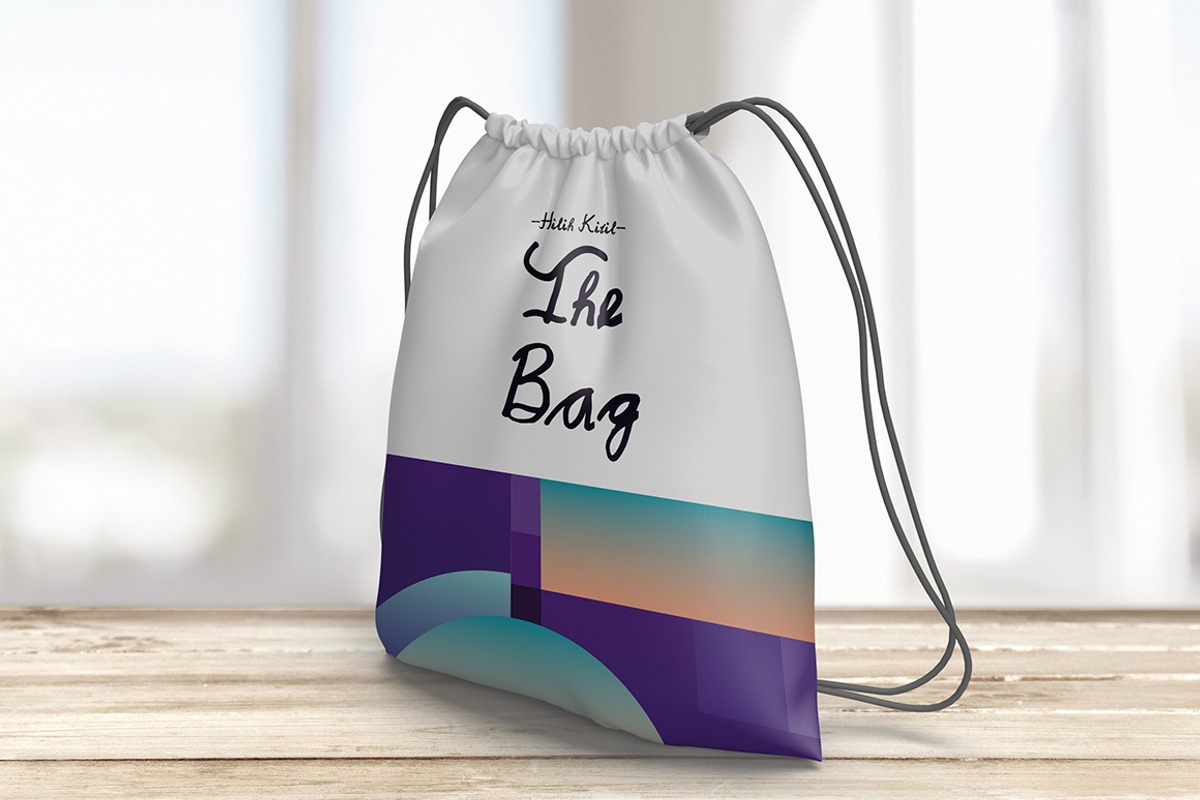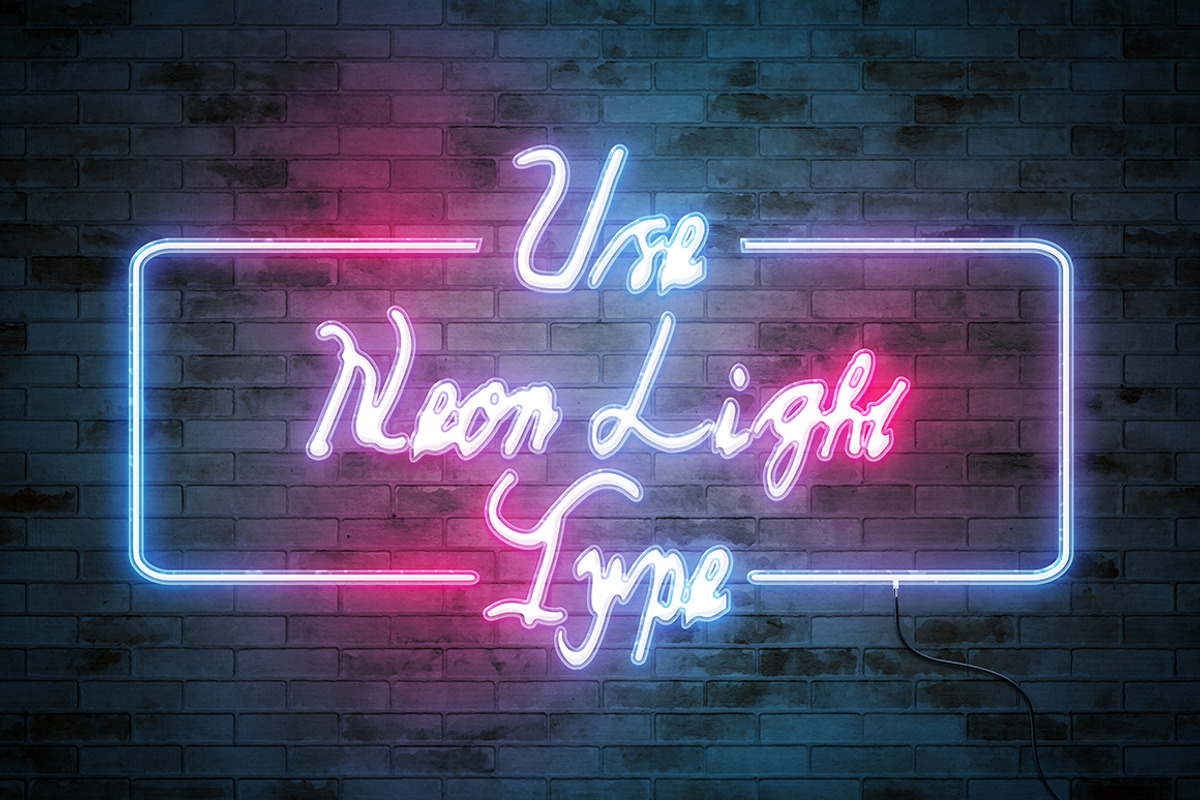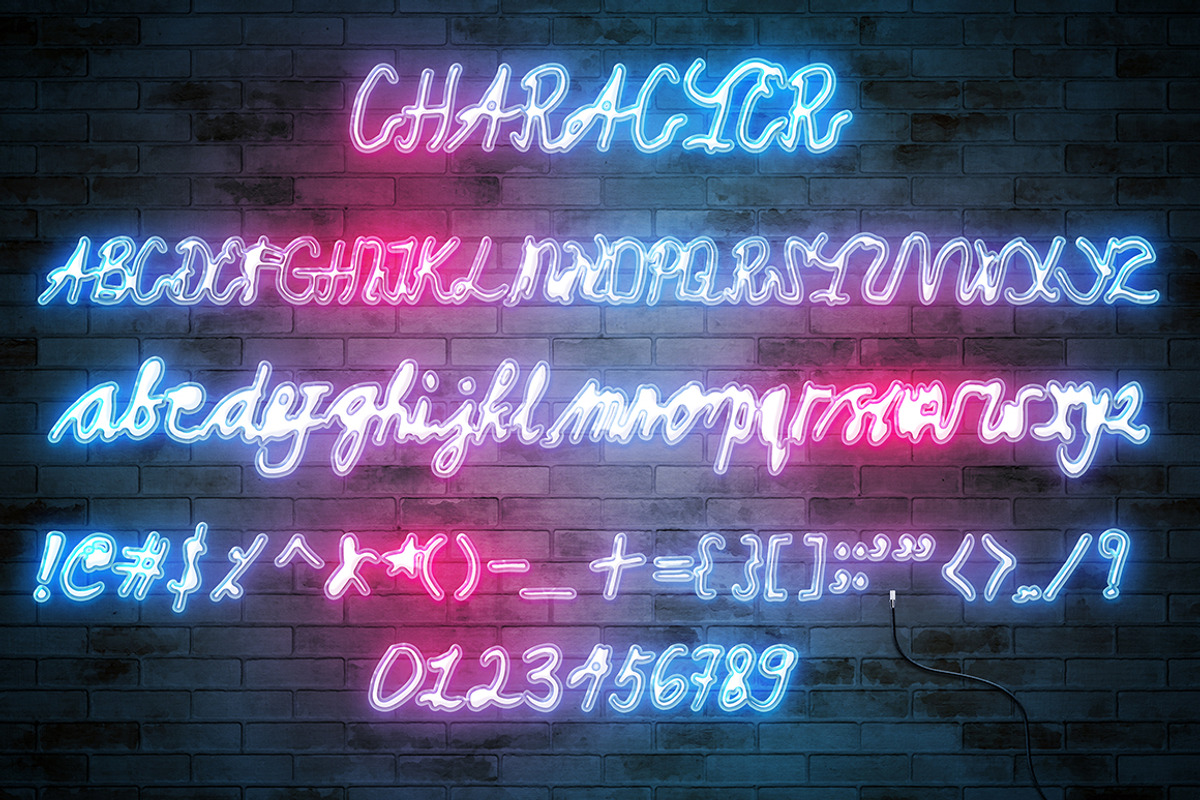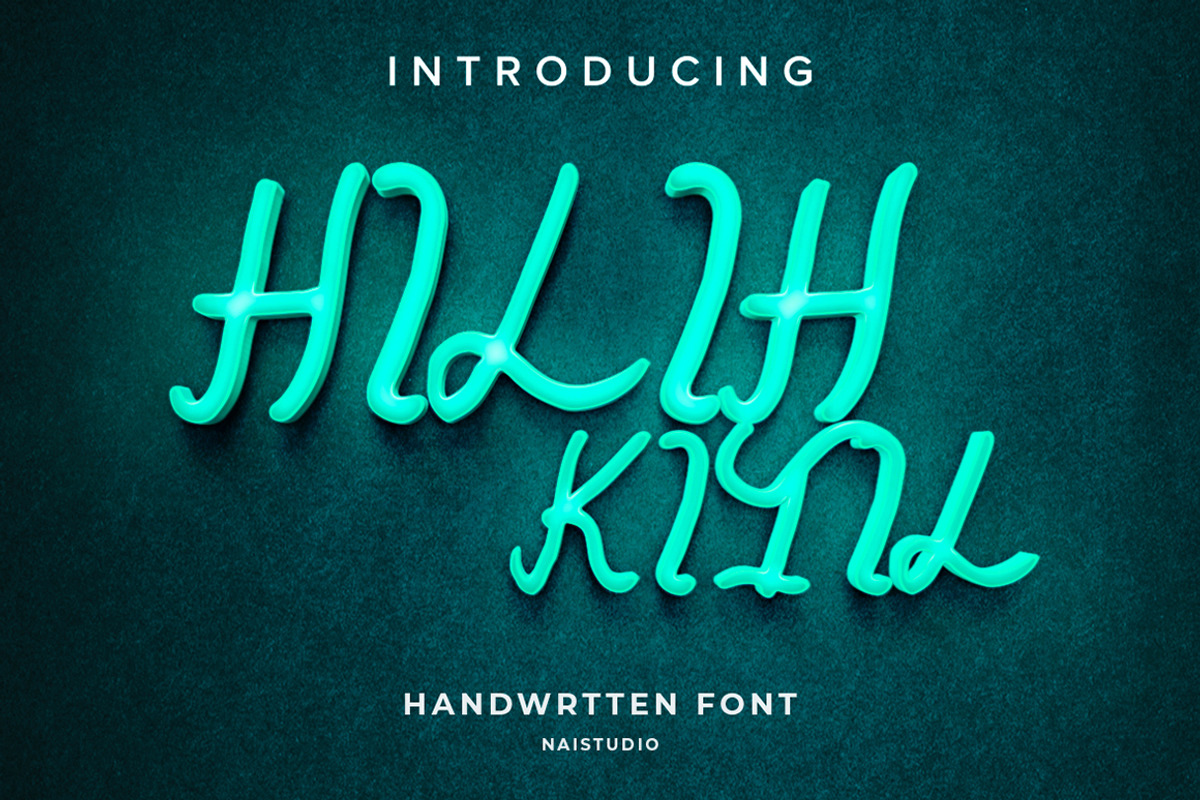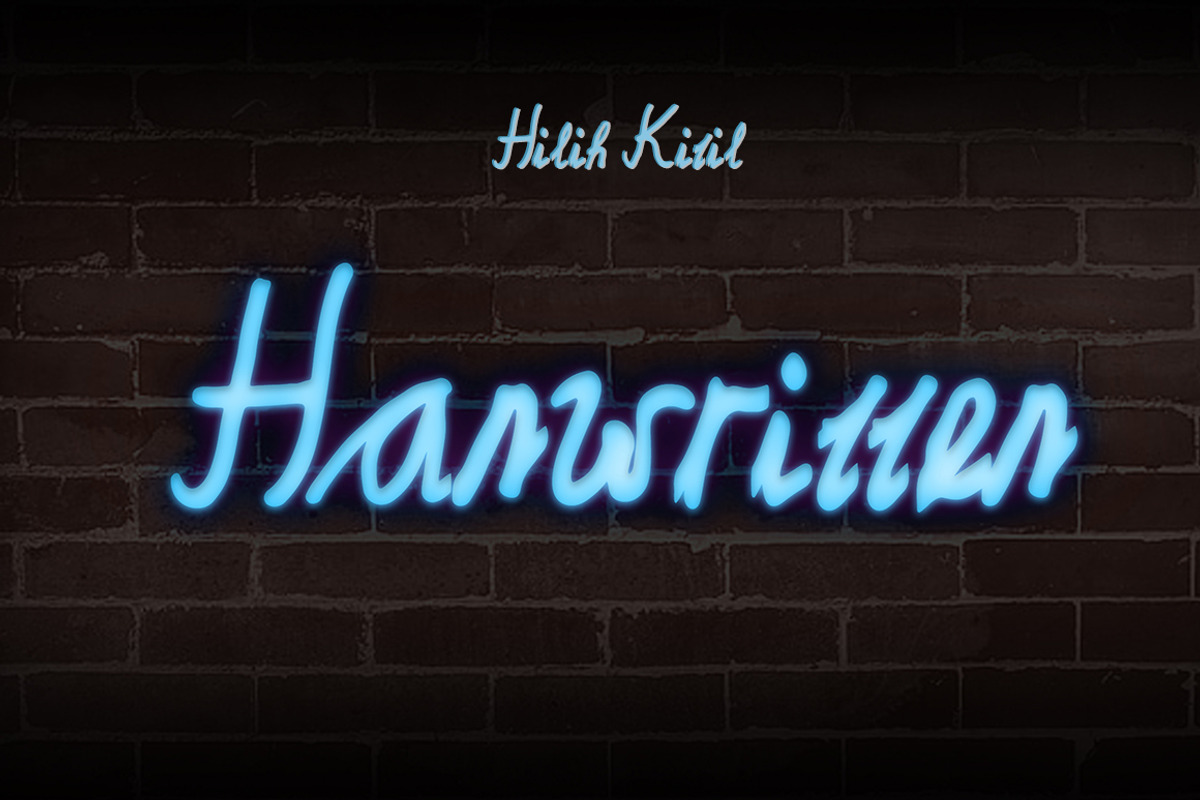
Hilih Ktil - Latin Handwritten Font
Introducing Hilih Ktil - Latin Handwritten Font
Hilih Ktil is a delicate, elegant and flowing handwritten font. It has beautiful and well balanced characters and as a result, it matches a wide pool of designs. Add it to your most creative ideas and notice how it makes them come alive!